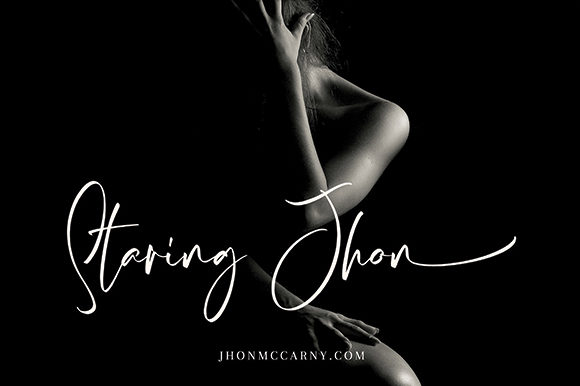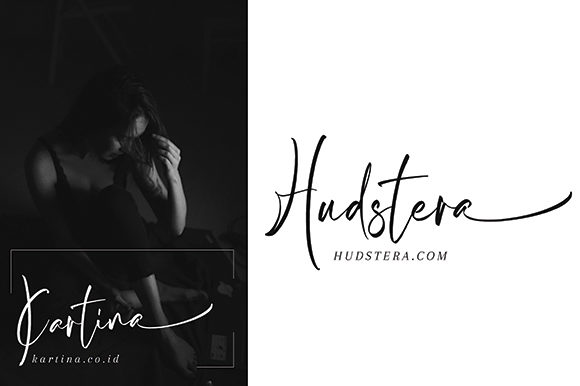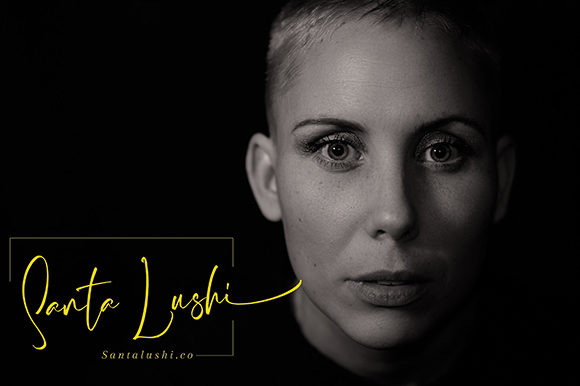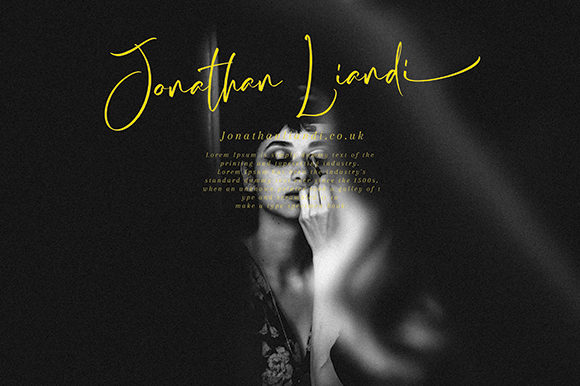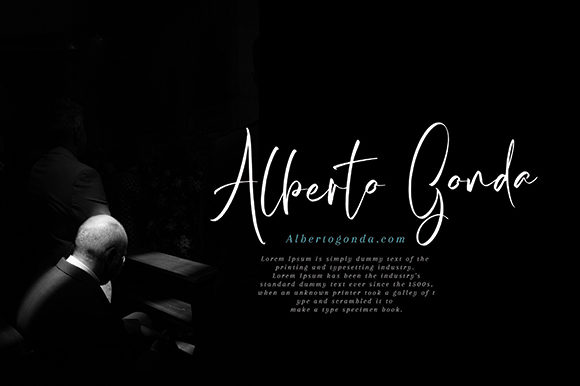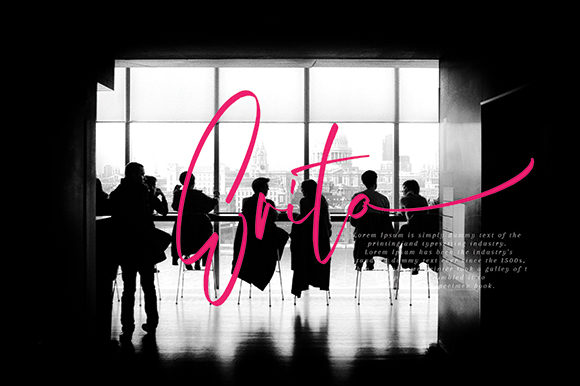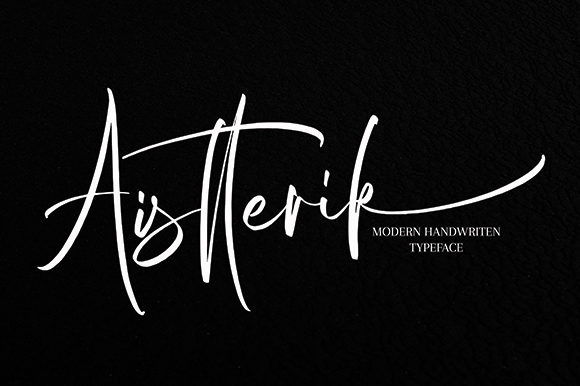
The Elegant Aistterik Font: A Designer’s New Best Friend
I’ll never forget the time I was working on a wedding invitation project, and my client asked for a font that was ” elegant, yet playful, and made them feel like royalty.” I scoured the internet, tried out dozens of fonts, but nothing seemed quite right. That was until I stumbled upon Aistterik. This stunning script font has been a game-changer for me, and I’m excited to share its beauty with you.
I’ve had the pleasure of working with Aistterik for a while now, and here’s what I think:
• ✨ Elegant and stylish: Aistterik is perfect for designs that need a touch of sophistication. It looks amazing on wedding invitations, thank you cards, and greeting cards.
• ✅ PUA encoded: This means you can access all the glyphs and swashes with ease, making it a breeze to customize your designs.
• 💫 Versatile: Aistterik is not just limited to wedding designs. It’s also perfect for logos, business cards, and quotes.
Now, I’m not going to sugarcoat it – there are a few quirks:
• 🤔 Some characters may require manual kerning: Depending on your design, you might need to adjust the spacing between certain characters to get the perfect look.
• ⚠️ Not suitable for body text: Aistterik is a script font, and as such, it’s best used for headlines or titles. It might be a bit too ornate for large blocks of text.
The Story Behind Aistterik
Aistterik was designed by a talented typographer who wanted to create a font that was both elegant and versatile. Inspired by classic script fonts, Aistterik combines traditional techniques with modern flair. The result is a font that’s both sophisticated and approachable.
What is Aistterik? Aistterik is a stylish and elegant script font, perfect for designs that need a touch of sophistication.
Is Aistterik PUA encoded? Yes, Aistterik is PUA encoded, making it easy to access all the glyphs and swashes.